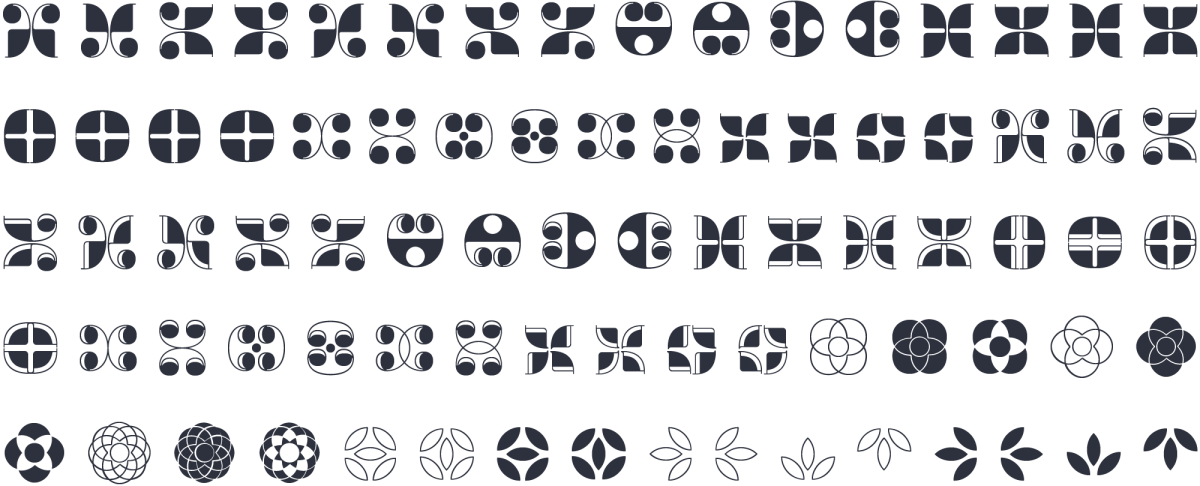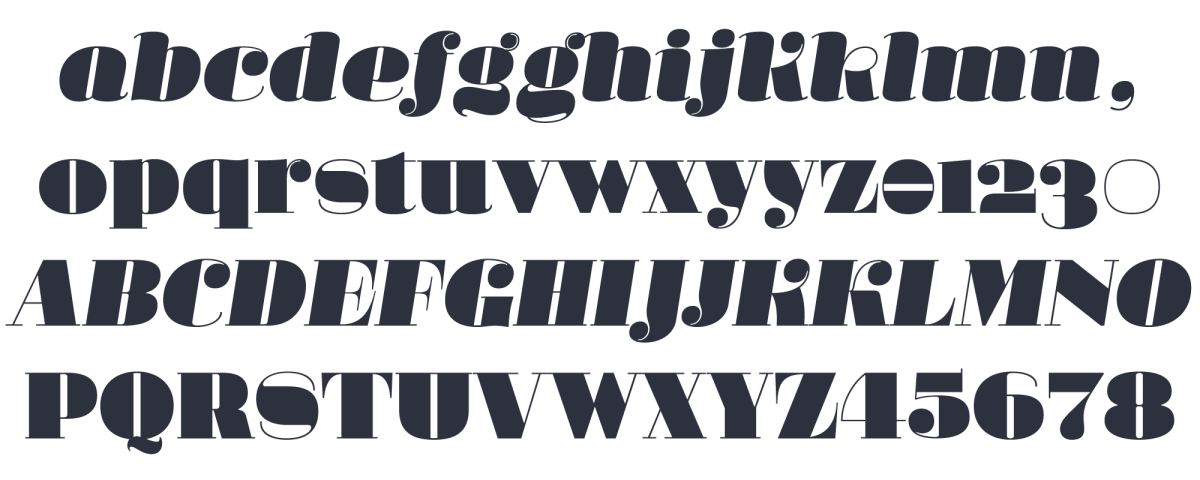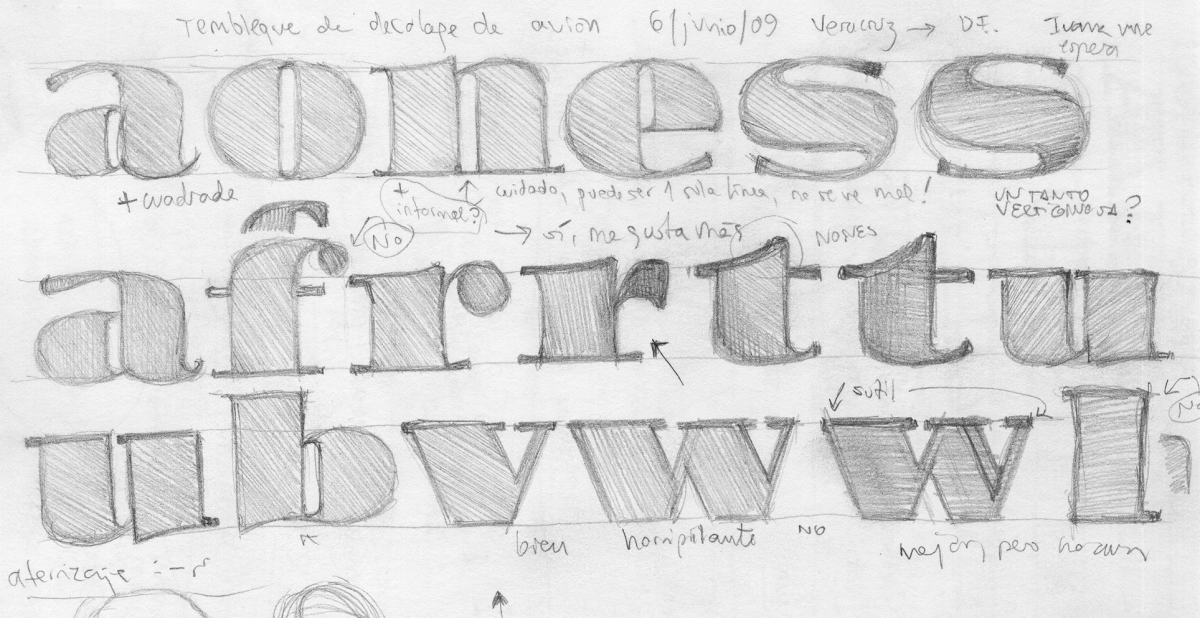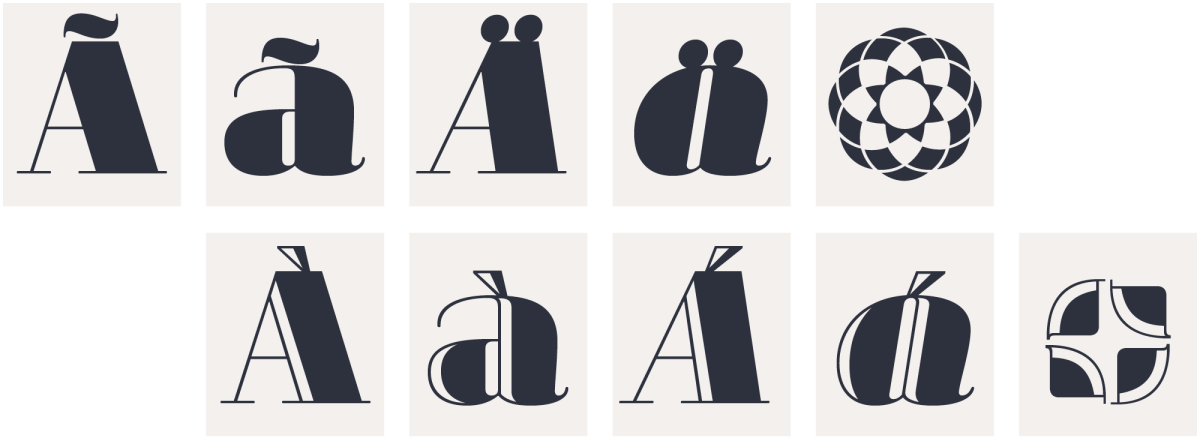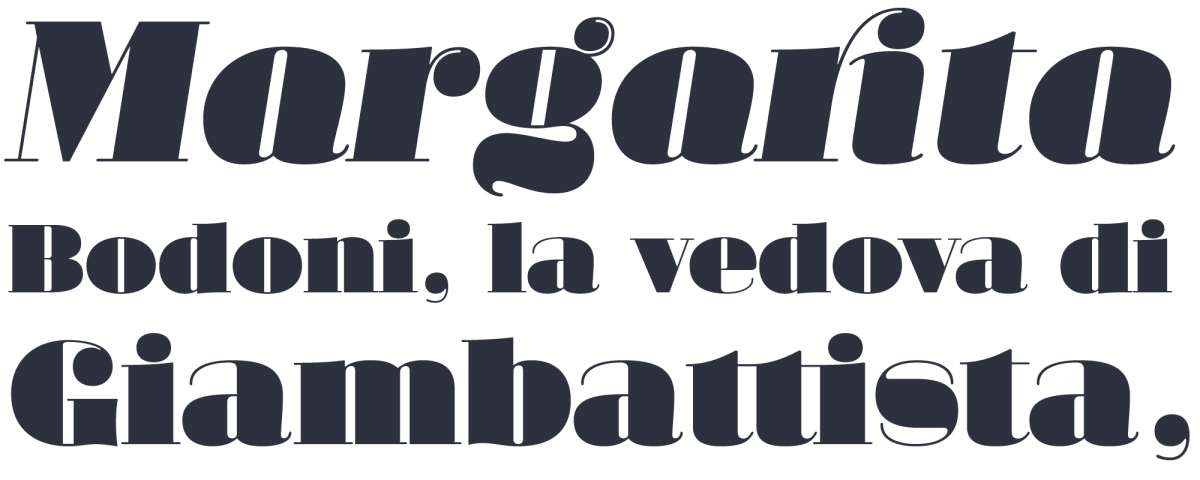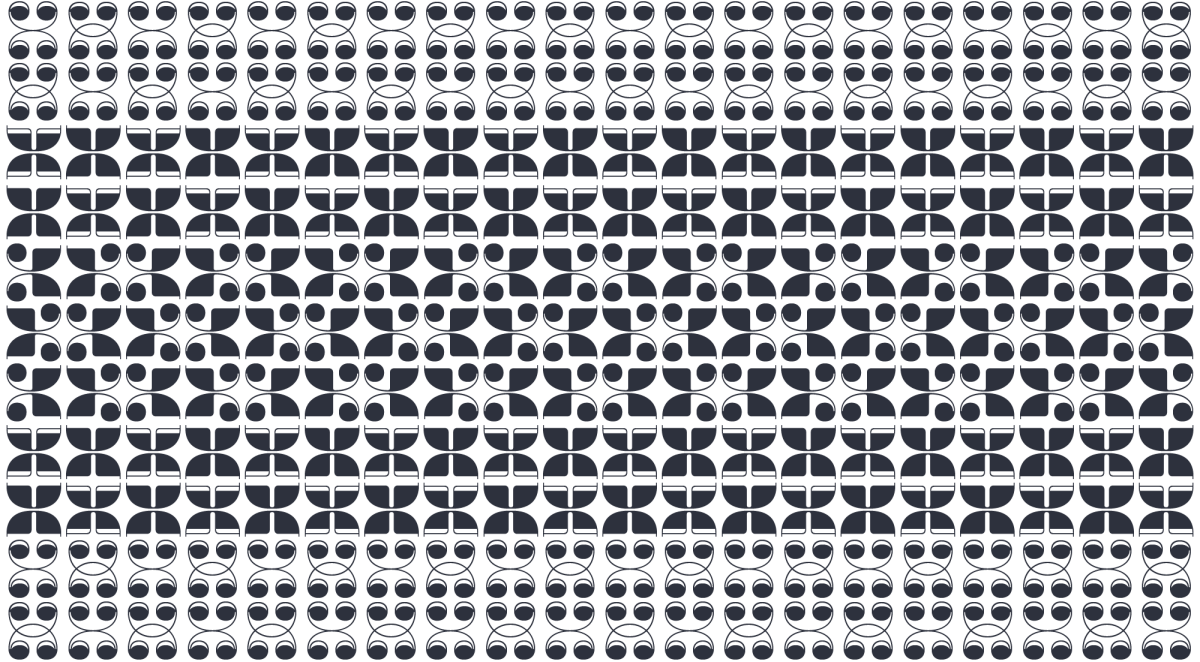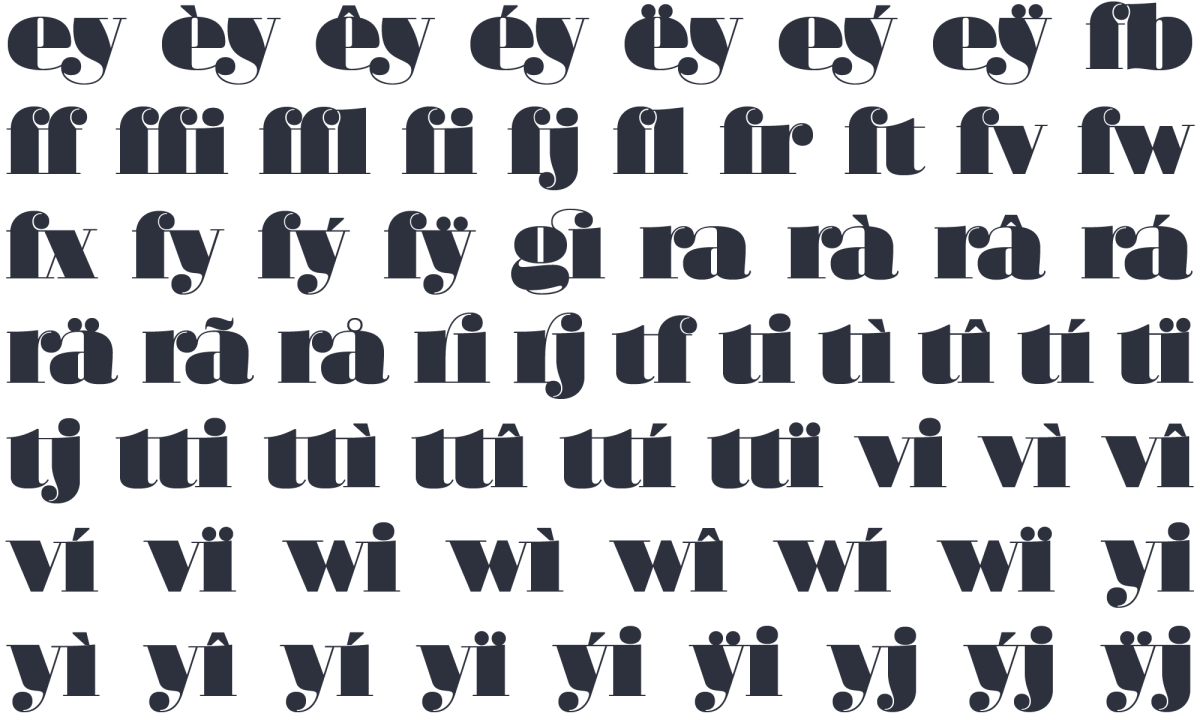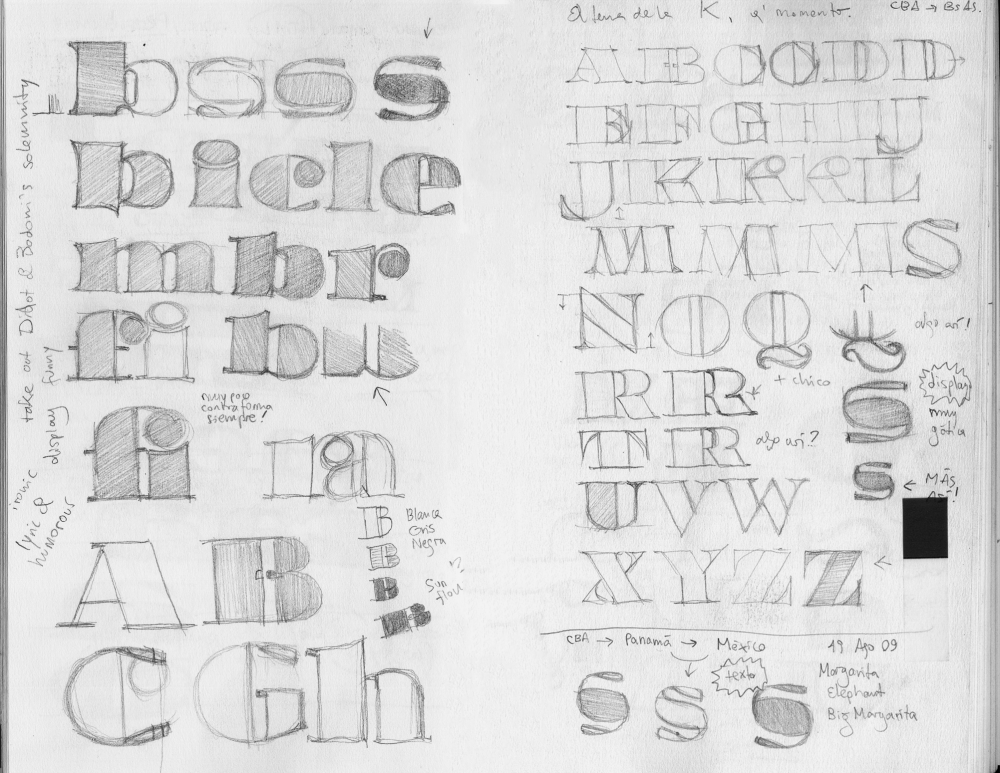
Margarita frozen? A passionate typeface to dress up giant words
Since its release Margarita have met much sympathy. No doubt it is a passionate type. One can easily relate its anatomy to Romanticism, Neoclassicism, or for that matter to the deeply emotional character everyone ascribe to Italians! a bit of a cliché…
Margarita type system. Margarita Regular, Itálica, Luce, Luce Itálica
However there are many sorts of passions. You won’t see Margarita used to anounce a football match for instance. What does it make us feel that it’d be good at the menu of a Mediterranean food restaurant? Or for the titling of an opera concert? Isn’t it a little mysterious how that passionate side works? Is there any hidden meaning in its sinuous curves? Some of these questions emerged during the design process of Margarita. Some other came up years later after seeing it used in real life. Here I explore some possible answers.
fat faces: chubby cheeks, big bodies
There are several Modern fat-faces out there, that is types of high contrast designed for big sizes. This is due to the voracious appetite for new fonts that was typical of the advertising industry in Victorian times. Note: Any similarity to the present day is purely coincidental.
I wanted to catalize that Romantic sense in a new type by reaching the highest possible contrast, in such a way that it could only be used at huge sizes. In due course I realized that, at the same time, I also wanted the type to be sensual and delicate.
Margarita sketches made during a flight from Veracruz to Mexico city.
delicate geometry?
One thing is clear, you need basic geometry, very round curves and very straight lines, in order to reach that highest contrast. The problem is obvious: geometry is not delicate nor sensual, rather the opposite. You need organic shapes to communicate delicacy. So a first question arose: Is it possible by using highly geometric forms to distill some sort of sensuality? This was the starting point of the design process behind Margarita.
A delicate drawing of curves helps to temper the rigidity of a geometric form, which might otherwise be perceived as an excess of naivety or simplicity.
«letters are things». ok. and images, aren’t they things too?
A fat face is not aimed at reading on the first place, but to be seen. Actually more than seen: visually enjoyed. So Margarita grew as an intellectual thing: a type self-concious of being an object for visual pleasure. Eric Gill would argue that “letters are things, not images of things”. He forgot that images themselves are also things, but of course he meant something else and he was right. He still is. Regarding this idea of letters as intellectual things, rather than real, I believe the reasoning behind Bodoni’s and Firmin Didot’s celebrated types might have been similar. A perfect image of a letter. Geometric, pure rationality, beautiful. That was the zeigheist at the very beginning of 19th century. Their error I think was trying to force it into immersive text, where high contrast cannot survive neither the print of such thin strokes, nor our reading habits. As it usually happens in high-contrasted fonts, very thin strokes become decorative elements. But you know… decoration is a tricky concept. This is going to be tackled in another article to come. Stay tuned.
In the drawing of Margarita I found that its strong geometry could get tempered by drawing curves and countercurves with delicacy. All that passion had to be contained somehow. Subtle outer curves made the job. Countershapes, that is inner forms, work differently. They can be geometric, open, dramatic.
margarita luce
At PampaType we love openfaces. Openfaces are also known as hollow, engraved, inline fonts. Since the arrival of photocomposition and later digital tech, we miss many singular forms that were commonly used in metal. One of those forms are openfaces. I think we should create as many openfaces as we can. I’m always seeking for openface companions to my types, they are classy, they add a singular flavor to the family, and also it is a lot of fun to make them.
Borges Título Hueca,
Rayuela Luz,
Arlt Deco 2 and Arlt Deco 1,
Borges Título Hueca,
Arlt Título Hueca,
Perec Ludique Oncle-Jacques,
Perec Scripte Deco [not yet released].
You learn a big deal when you design an openface. Besides the usual complexity of having to harmonize the inner and outer curves of a letterform, you need to sort out two additional complexities: first, you have another (white) counter that needs to be related to the whole letter; and second, the overall black-and-white rhythm gets more elements to be orchestrated. An openface is a multidimensional design. That is why they should be used with discretion. Margarita Luce (Luce is the Italian for Light) is the openface version of Margarita.
ornaments
Margarita come with a set of contemporary ornaments, which can be put together to compose elegant grecas, frames, and backgrounds.
ligatures
All four Margarita fonts include several standard as well as discretionary ligatures. Discretionary means you should not use these ligatures if you want the text to remain discrete.
All in all I think Margarita is a careful design. I tried to make its curves in a way that they pair solidity and sensuality. It all resulted in a type that can give a lyric atmosphere to the page, by combining the frankness of geometry with delicacy of drawing. You are encouraged to use Margarita only at giant sizes! Bon apetito.